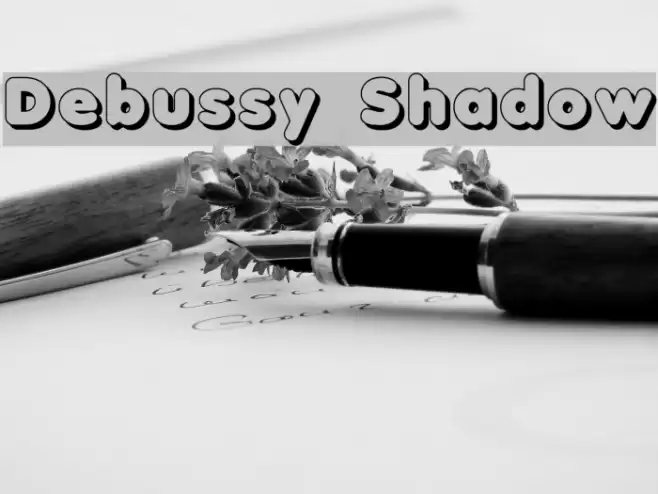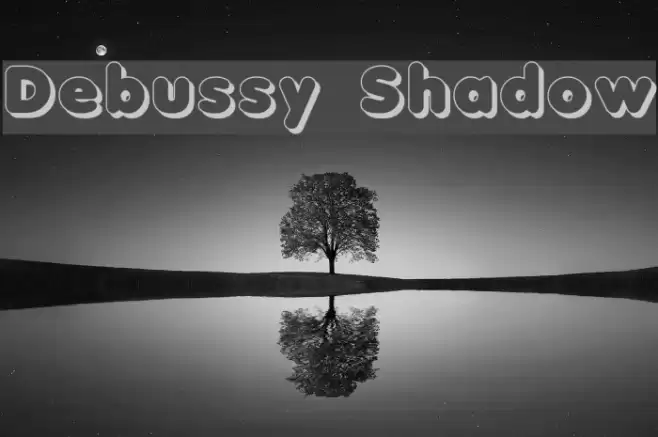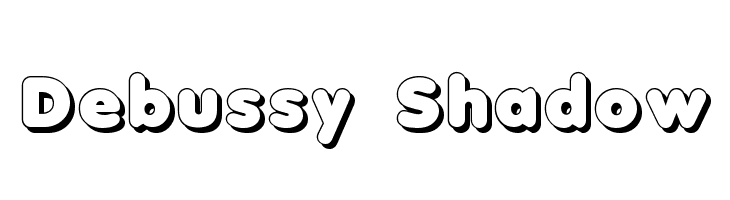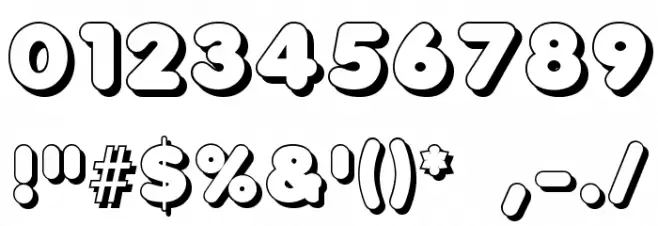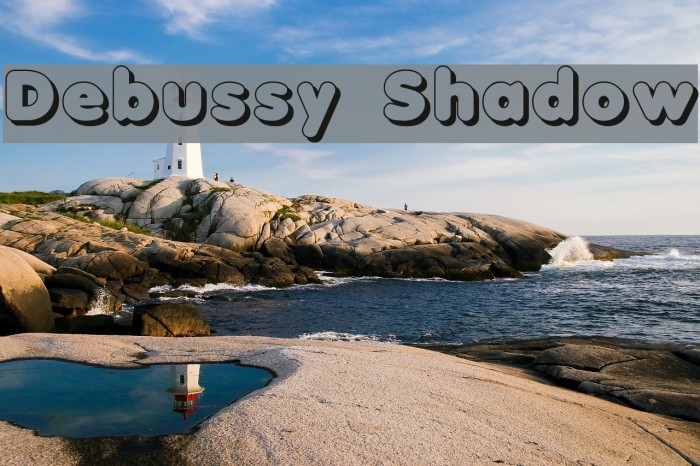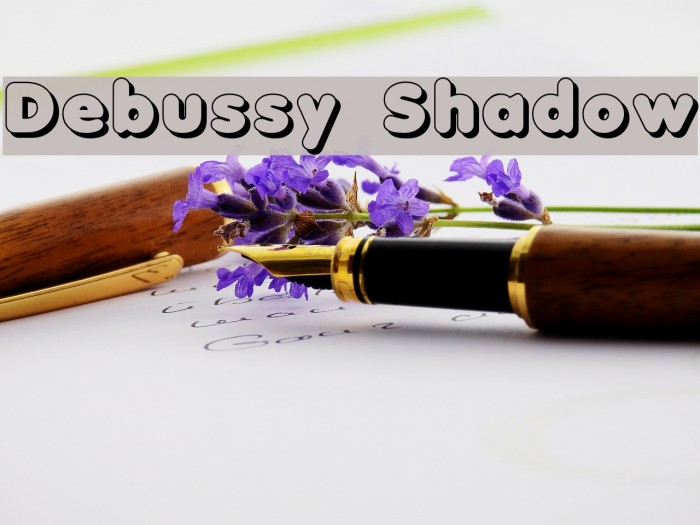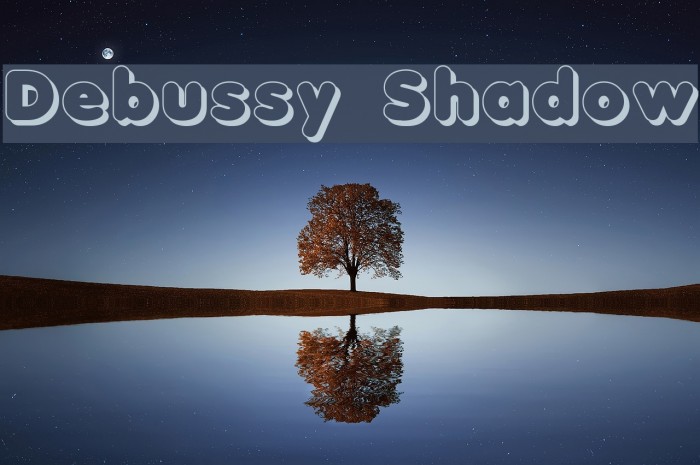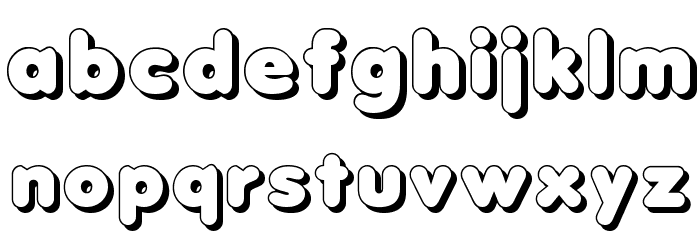
Debussy Shadow Font
Debussy Shadow Description
This playful and bold font features a distinct shadow effect that adds depth and dimension to each character. The rounded, bubble-like letters are eye-catching and convey a sense of fun and creativity. The uppercase and lowercase letters maintain a consistent style, with smooth curves and a uniform thickness that enhances readability. The numbers and special characters are designed to match the whimsical style, making them perfect for projects that require a lively and engaging appearance. The shadow effect gives the font a three-dimensional look, making it ideal for designs that need to stand out.
A bold, playful font with a shadow effect, perfect for creative projects from Uncategorized fonts.
- Font: Debussy Shadow
- Proposed Projects: Ideal for children's books, playful branding, posters, and creative advertisements.
- Overall Style: Playful, Creative